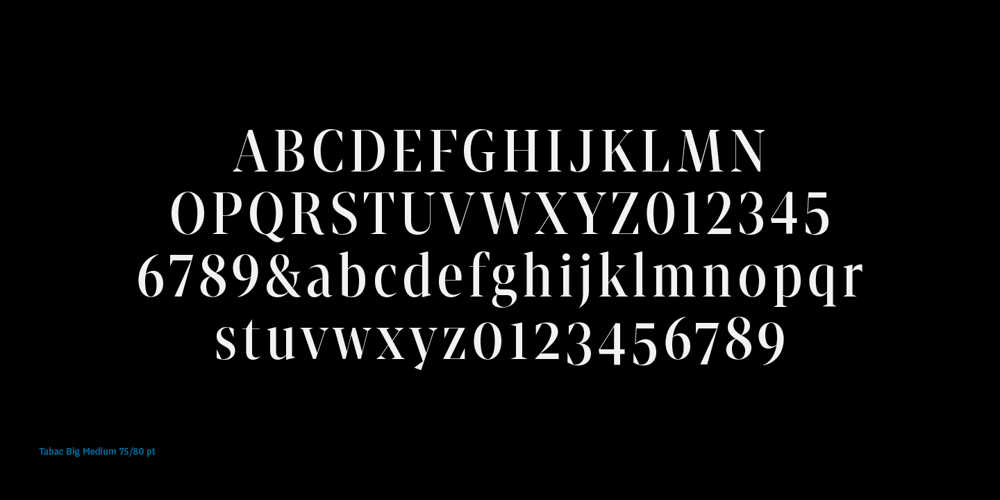
Tabac Big
Tabac Big font
Tabac Big Font Family was designed by Tomáš Brousil and published by Suitcase Type Foundry. Tabac Big contains 16 styles and family package options. Tabac Big can satisfy all expressionists desiring idiosyncratic colouring in setting because it provides black weights. But at the same time it offers solutions for orthodox environmentalists who like to save ink and toner — all the fragile hair styles are intended just for them. Less clearly-defined typographers can then choose from the six other weights, from Thin through Light, Regular, Medium, Semibold and Bold, including true italics. Tabac Big is a first and universal choice where we look for pronounced display type as a complement to text type. Its modern drawing, made up of precise arcs, sharp lines and seemingly simple segments, gives a clear and unmistakeable impression every time. And yet the typeface knows how to intrigue — especially in shaping the italics, which fully expresses the typeface’s unique details, such as its large bulbous instrokes and outstrokes and heavy wedge serifs.